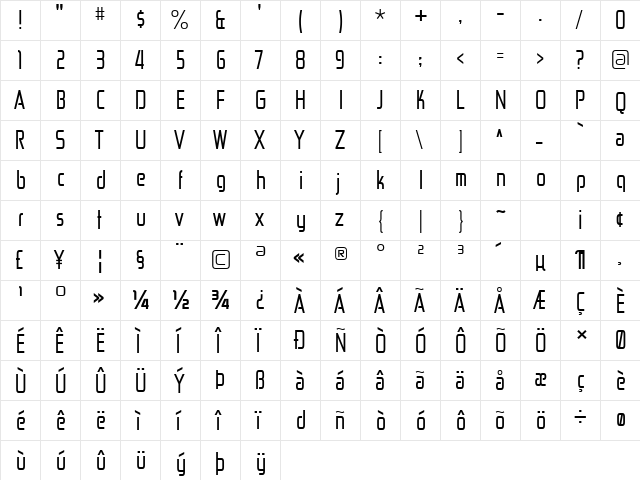
Zekton Cd Regular
Design Context for Zekton Cd Typeface
Zekton Cd is a composed and adaptable typeface that performs quietly and consistently across a wide range of design contexts.